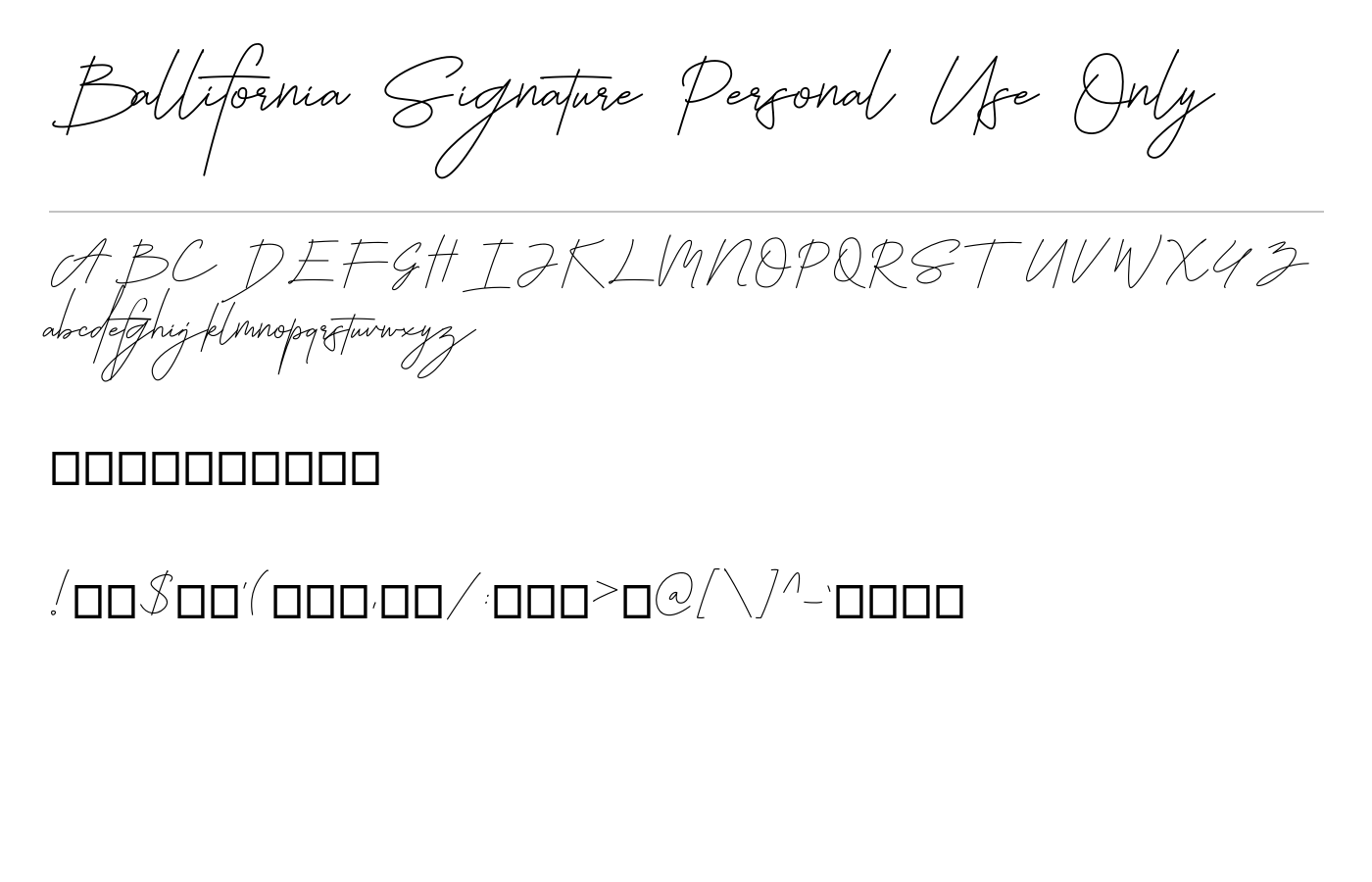
Ballifornia Signature is an elegant, thin script font that mimics natural, flowing handwriting with a casual and personal touch. Its tall, slender letterforms with smooth, delicate strokes make it perfect for stylish branding, wedding invitations, and sophisticated, modern designs where a refined, approachable feel is desired. This font works beautifully in logos and headlines, adding a custom, handwritten charm to creative projects.
Ballifornia Signature Font
About Ballifornia Signature Font
| Font family | Ballifornia Signature Font |
| Designer | FinTypeStudio |